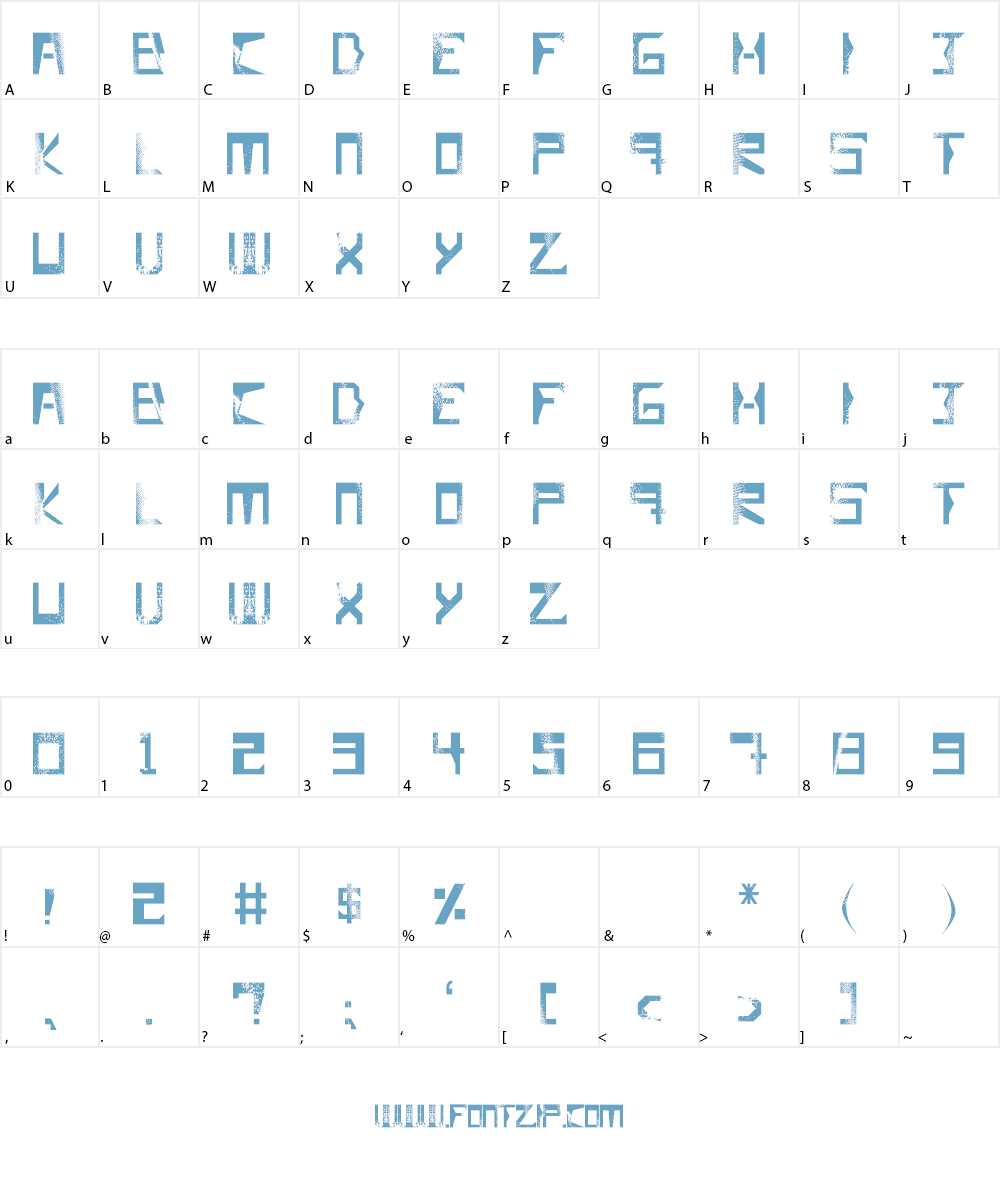
This typeface was designed with a corporate purpose for which its use is only reduced to private, not inflict the copyright and buyer.
Designed by Luis Jaramillo for CFC Youth Tierralta rights reserved.
Este fuente tipográfica fue diseñada con un fin corporativo, por lo cual su uso solo se reduce a personal, para no infligir los derechos del autor y del comprador.
Diseñada por Luis Jaramillo para CFC Jóvenes de Tierralta derechos reservados.